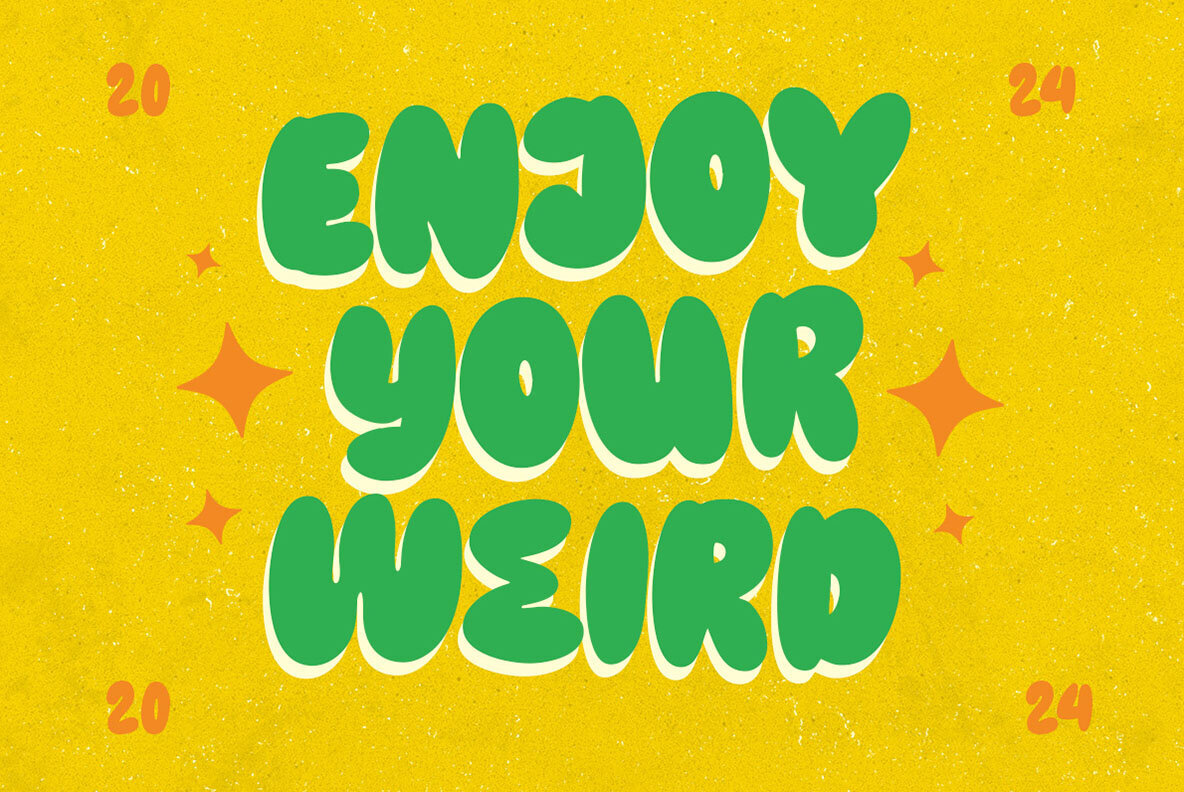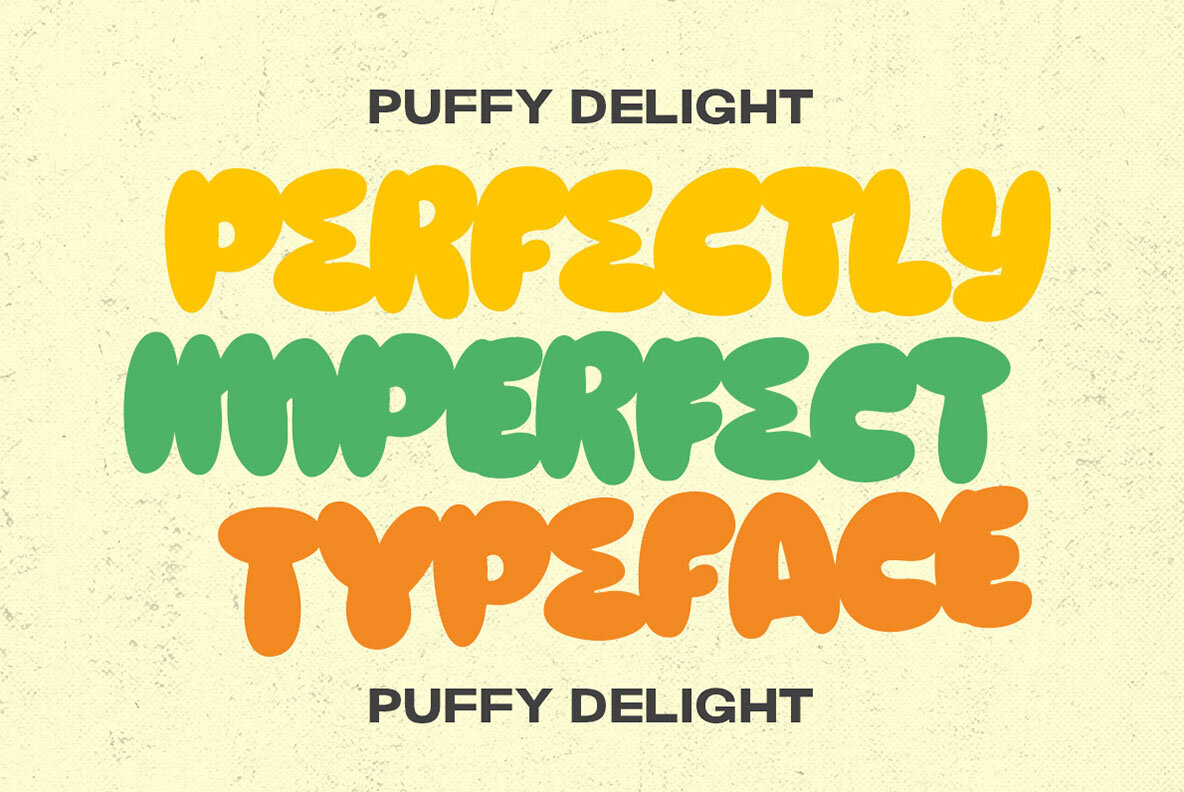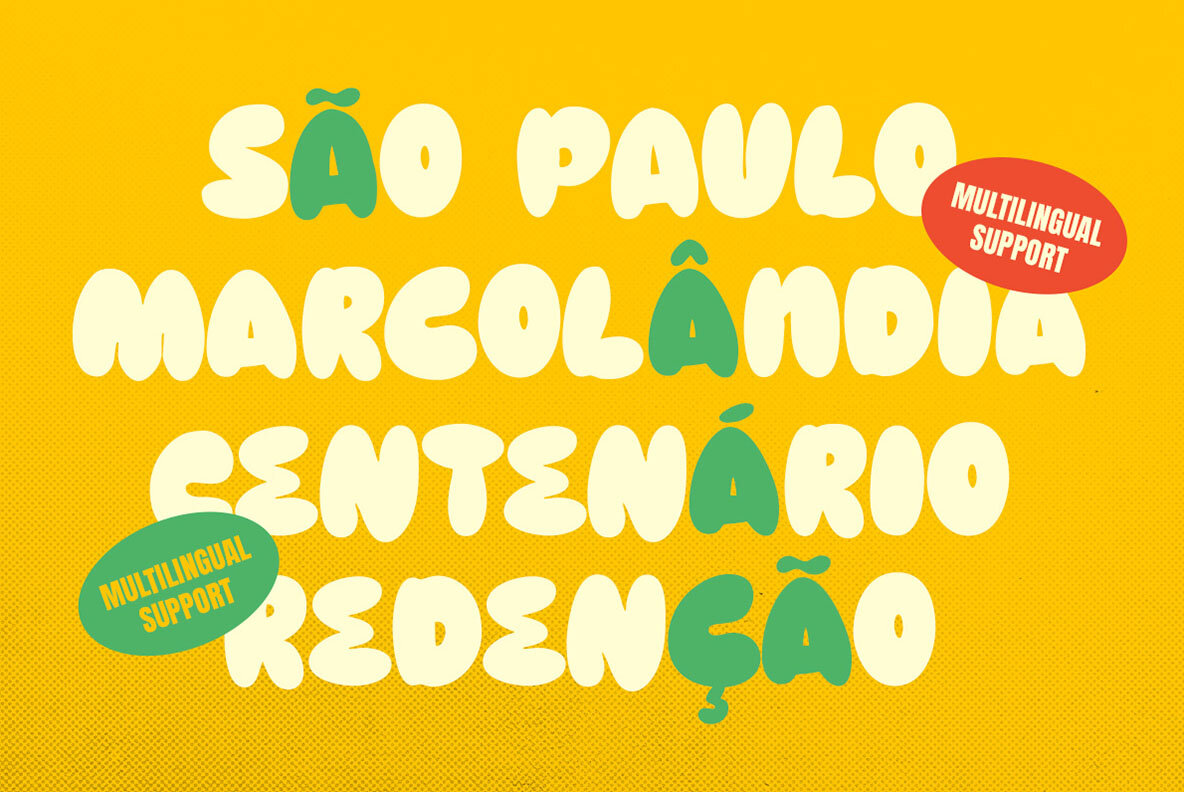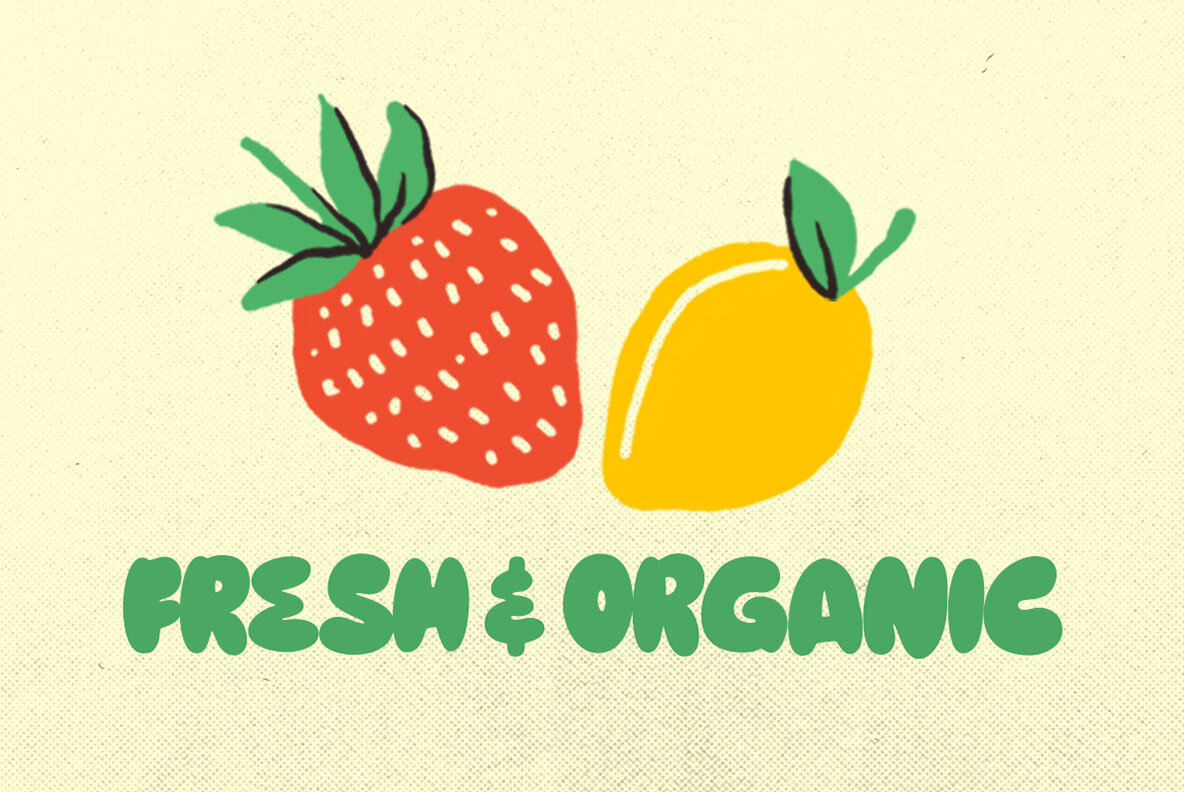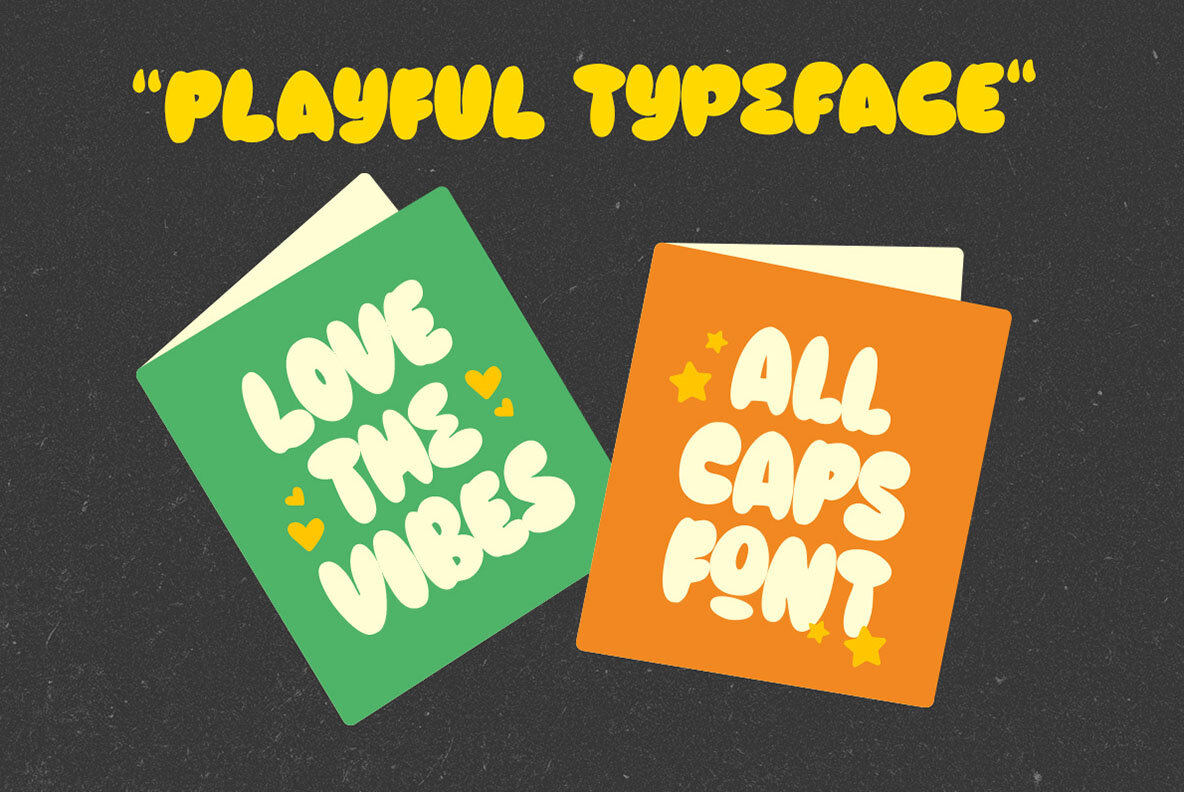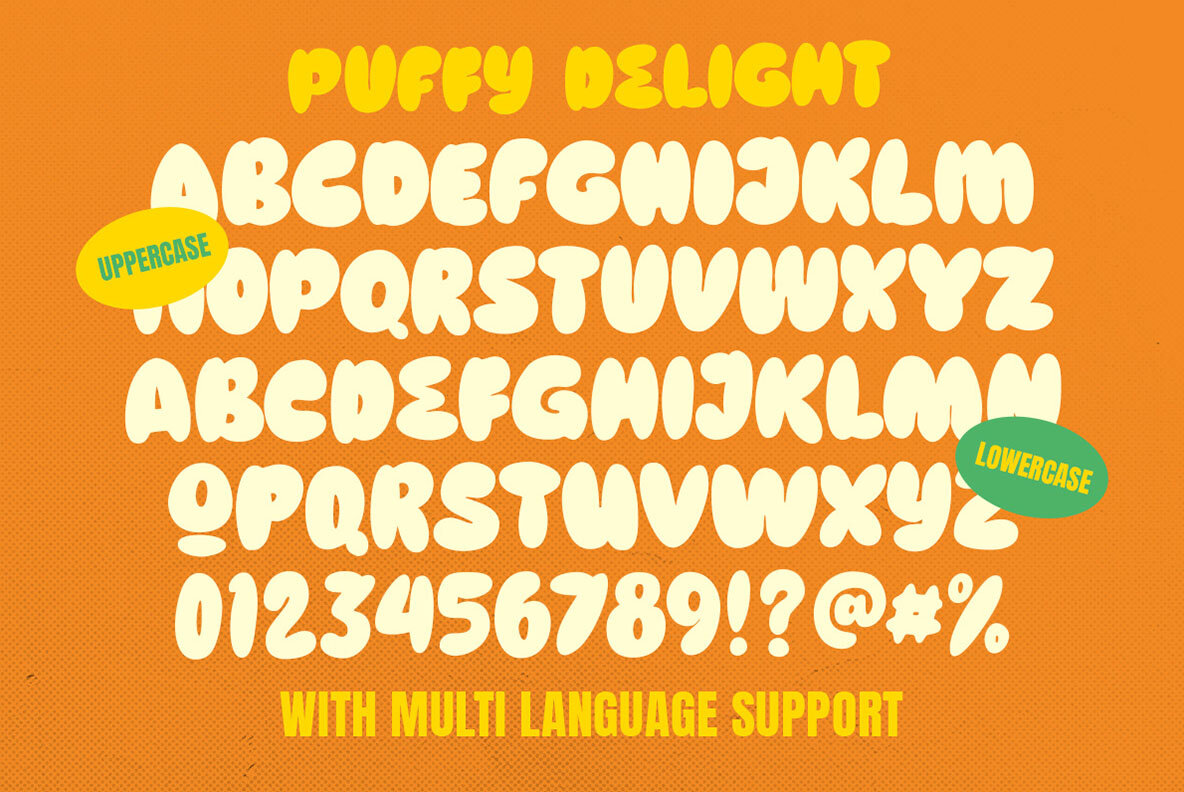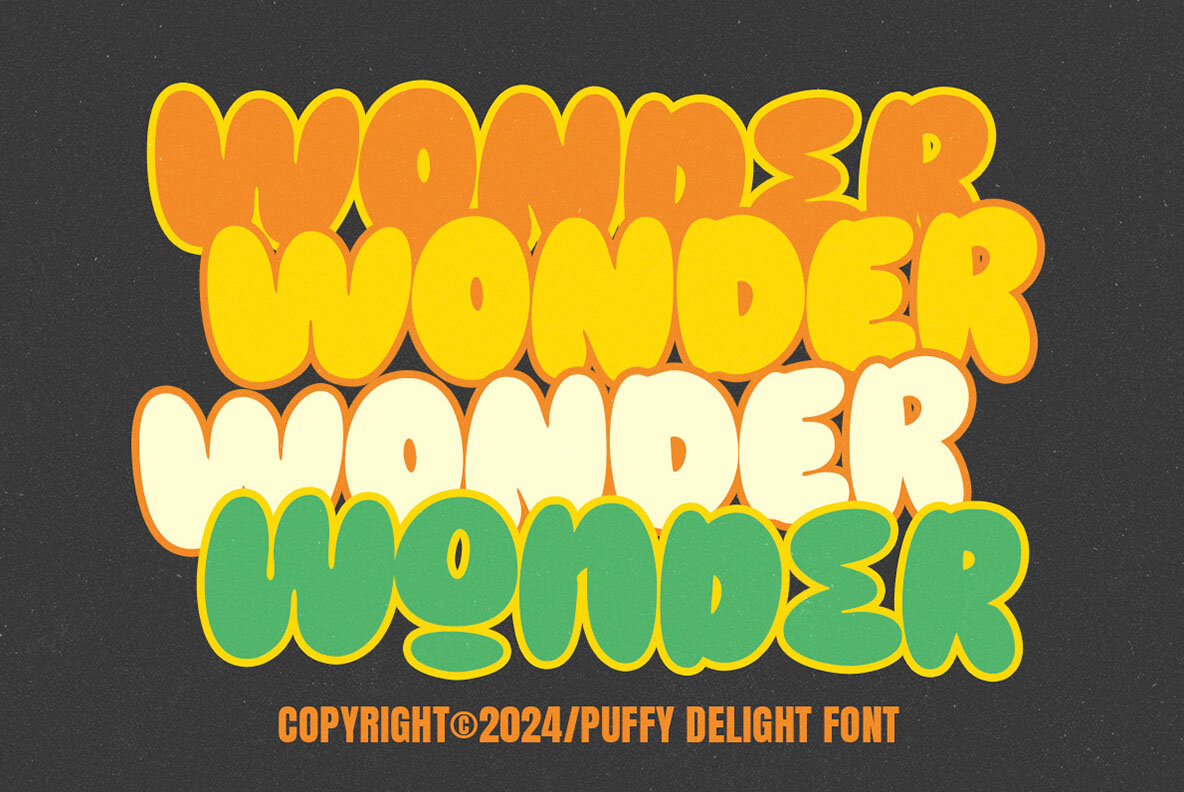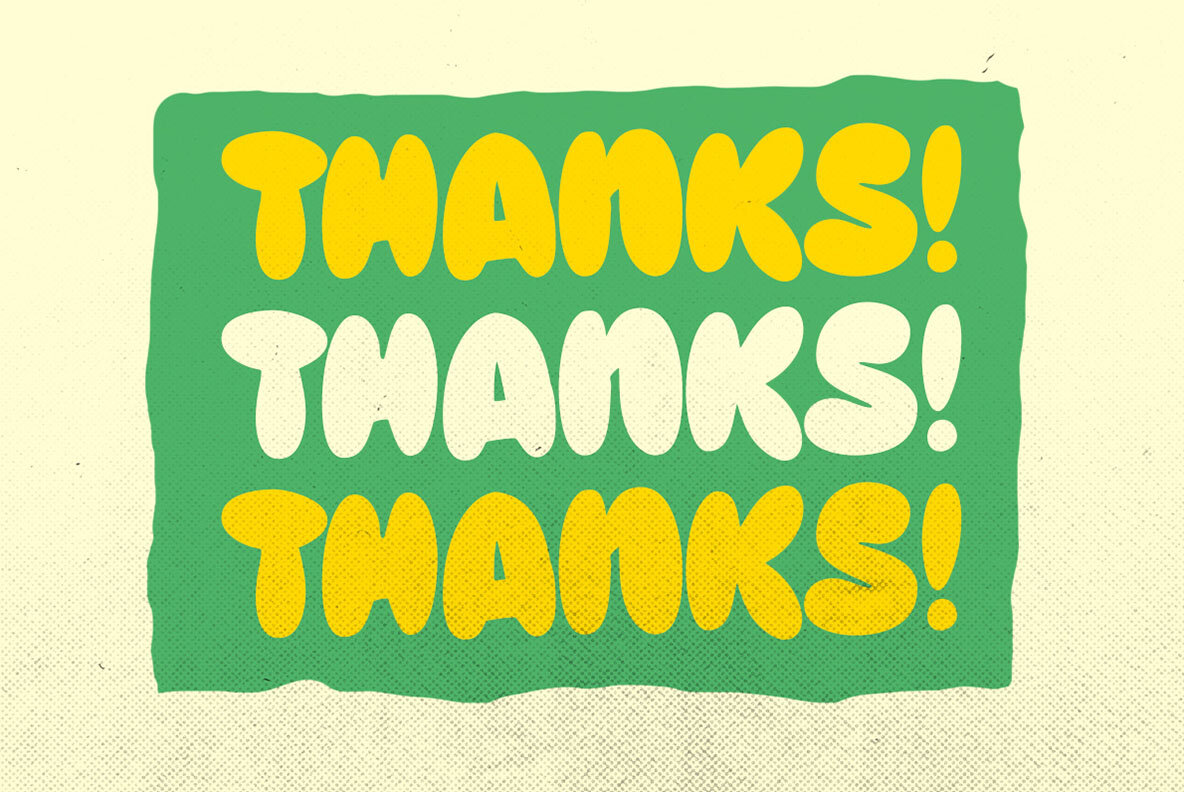
Bring the vibrant energy of retro-inspired typography into your creative palette with the "Puffy Delight" by Letterhend Studio—a bold, bubble-shaped font that effortlessly combines playfulness, nostalgia, and robust design elements. With a reminiscent character of the groovy 70s, Puffy Delight comes off as a fun and vibrant typeface that speaks directly to the viewer, while keeping it professional. It is designed to inject personality and youthfulness into every project. Infused with a distinct sense of boldness, this font can transform any piece— be it a logo, label, invitations, magazines, or a formal letter— it makes every design a visual feast. Since its creation by the reputable Letterhend Studio, Puffy Delight has provided designers with an irreplaceable tool in their creative library, bridging the gap in between classic font styles and contemporary design form. Perfectly suited to both endearing charm and business official, Puffy Delight is an essential piece in every designer's font collection that wishes to step beyond traditional confines while maintaining elegance. Technical Features:Captivate with the Puffy Delight Font: A Playful Nostalgia for Graphic Designers & Marketing Firms